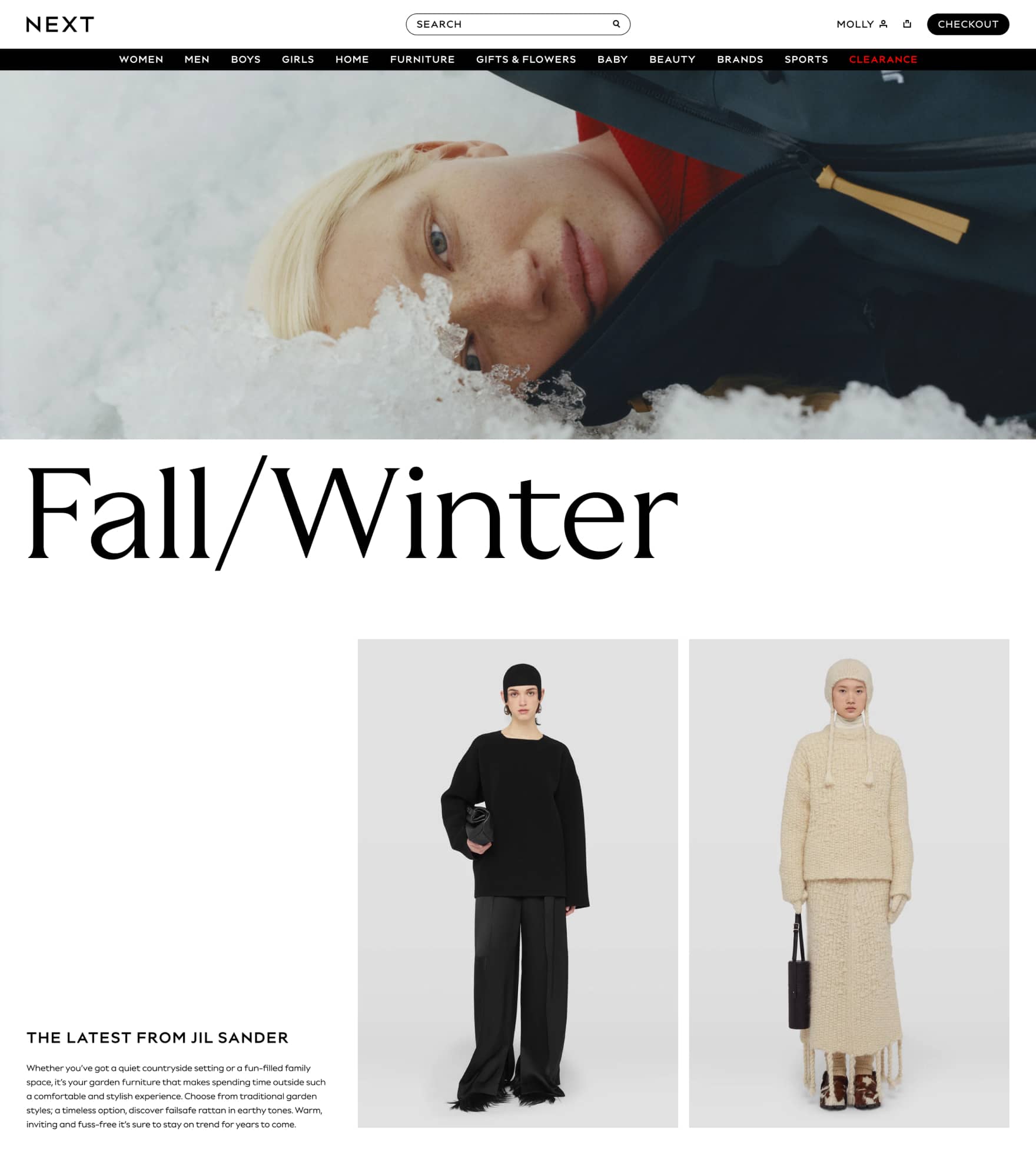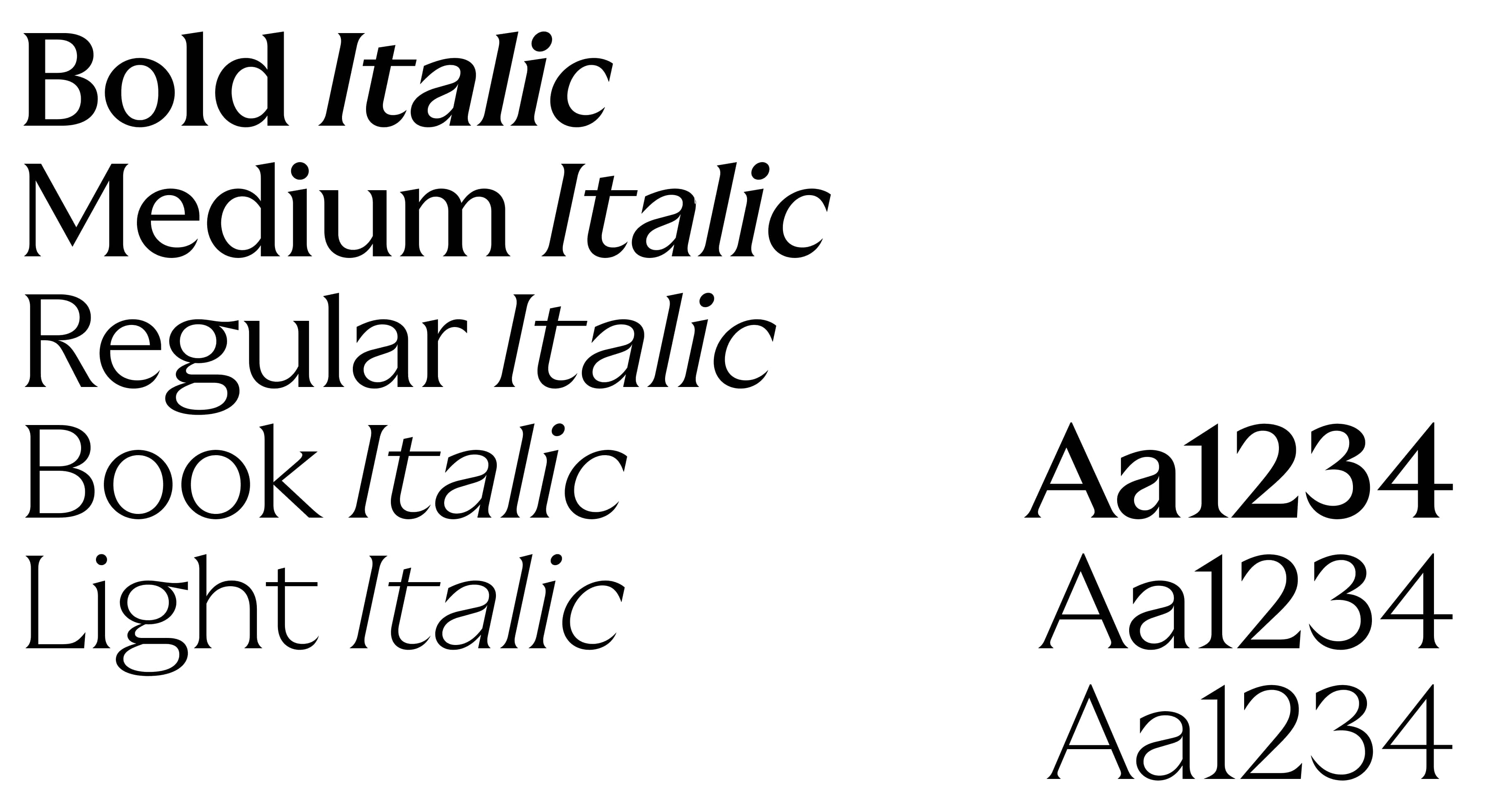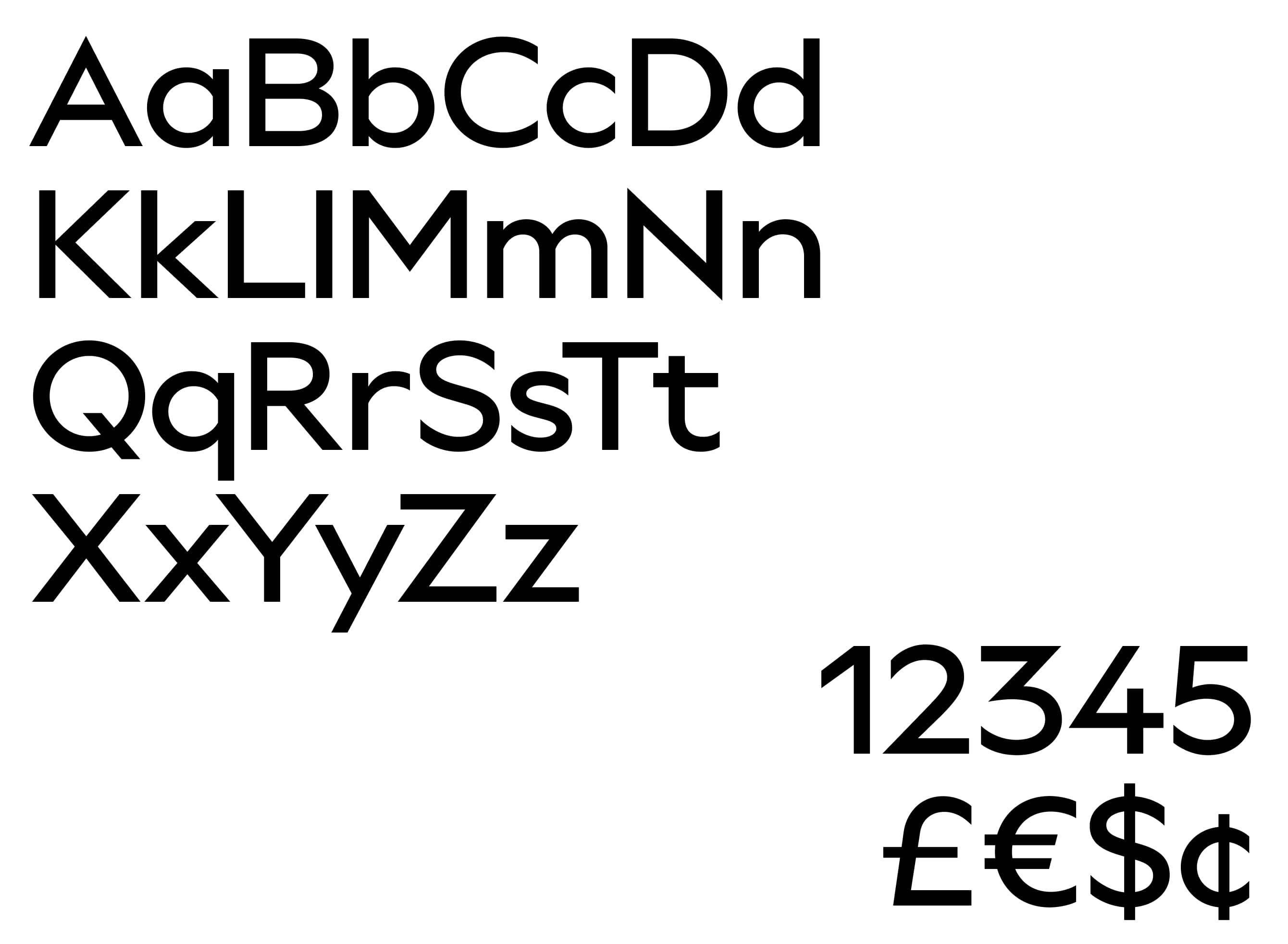
Next
Wordmark
Bespoke Sans
Output
2 Typefaces
10 Styles
5 Weights
Brief
The international store Next, pride themselves on forward thinking and knowing what is next in fashion and retail trends. Through comprehensive exploration we created a wordmark to embody their ideology . We were then asked to continue collaborating on progressing their brand cohesion and created a bespoke family of modernist typefaces , as a visual extension to the lettering from the new wordmark.